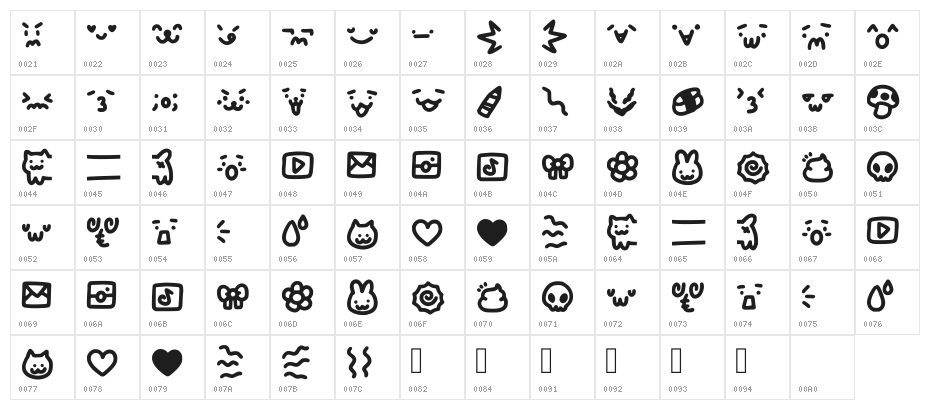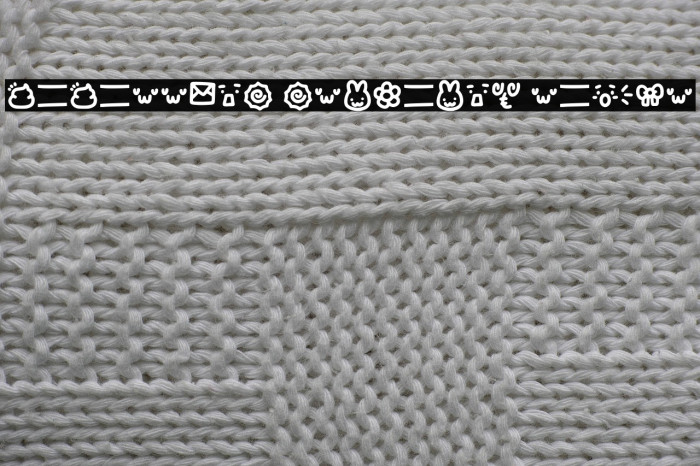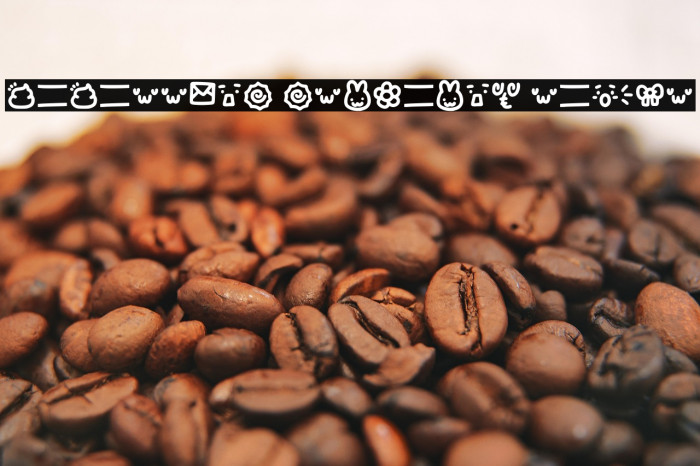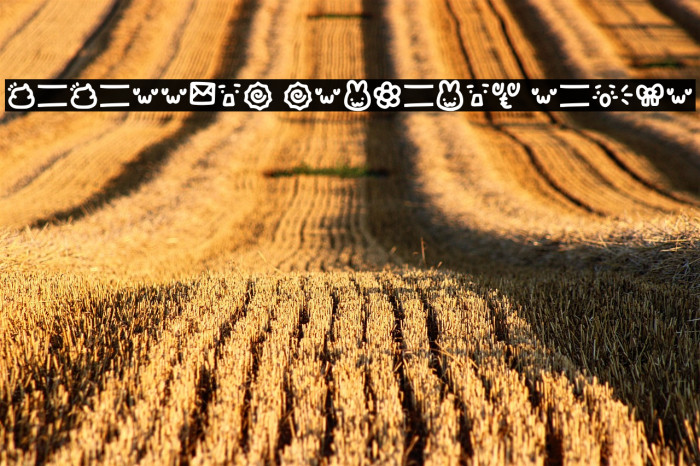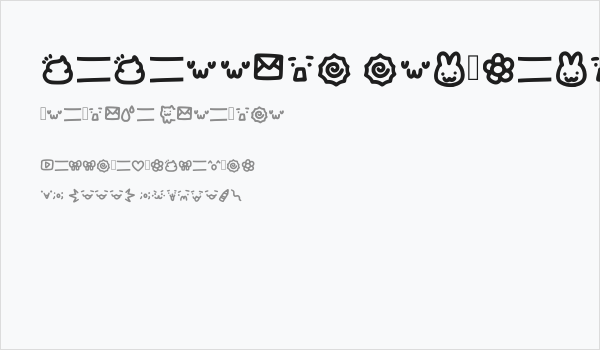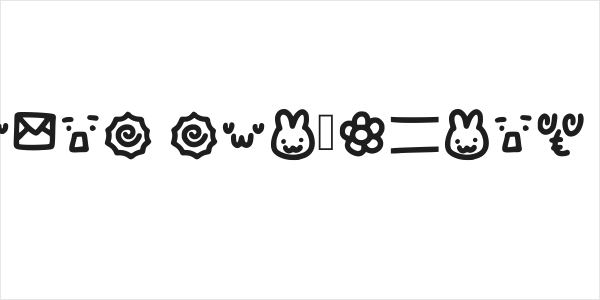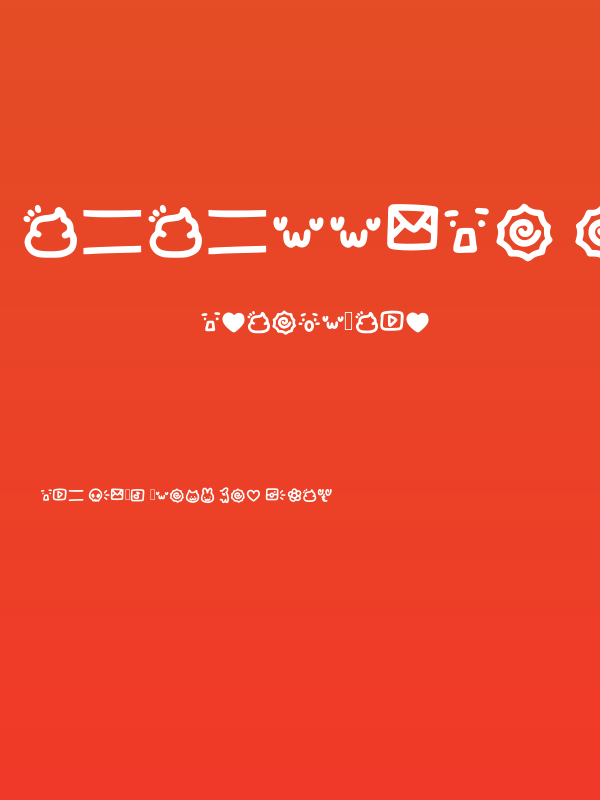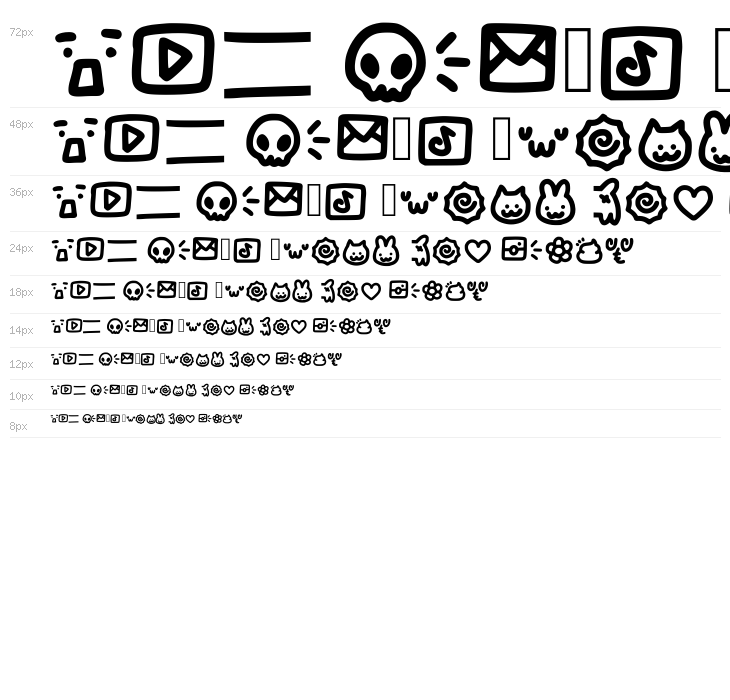
Peperrito Ornaments Regular Font
Peperrito Ornaments Regular Description
This font is a playful and whimsical collection of decorative ornaments and symbols. It features a variety of cute and quirky icons, including animals, hearts, music notes, and other fun shapes. The style is bold and cartoonish, with thick lines and a hand-drawn feel that adds a sense of charm and personality. The characters are designed to be visually engaging and are perfect for adding a touch of fun to any project. The font's unique style makes it ideal for creative and informal uses, where a lighthearted and imaginative touch is desired.
| Use Case | Decorative elements, Creative projects |
| Proposed Projects | Ideal for children's books, playful invitations, greeting cards, and creative social media graphics. |